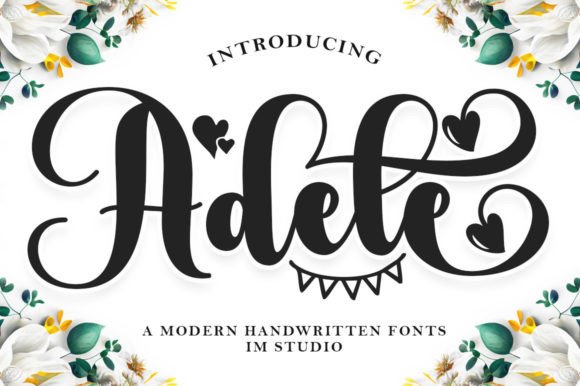
The Adele Font: A Game-Changer for Creative Projects
I’ll never forget the design struggle I faced while working on a wedding invitation project. My client wanted a font that was elegant, yet playful, and I was determined to find the perfect one. After hours of scouring the internet, I stumbled upon Adele’s latest style letters, and it was love at first sight! ✨ The beautiful, handwritten taste of this font was exactly what I needed to bring my client’s vision to life.
• ✨ Elegant and Playful: Adele Font has a unique blend of sophistication and whimsy, making it perfect for a variety of projects.
• ✅ PUA Encoded: The font is PUA encoded, which means you can easily access all the glyphs and swashes to add an extra touch of personality to your designs.
• ✅ Versatile: From wall displays to wedding invitations, social media post logos, advertisements, product packaging, and more, Adele Font is a versatile choice that can elevate any project.
While Adele Font is an amazing choice, there are a few things to keep in mind: ⚠️ Some users have reported that the font can be a bit tricky to work with in certain design software. However, with a little practice, you’ll get the hang of it! 🤔
The Story Behind Adele Font
Adele Font was inspired by the classic handwritten fonts of the past, with a modern twist. The designer wanted to create a font that was both elegant and playful, perfect for a variety of creative projects. The result is a beautiful, unique font that’s sure to elevate your designs.
Q: What is PUA encoding, and how does it work?
A: PUA (Private Use Area) encoding is a way of encoding fonts that allows for easy access to glyphs and swashes. With Adele Font, you can access all the glyphs and swashes using the PUA encoding.
Q: Is Adele Font suitable for body text?
A: While Adele Font is beautiful, it’s best suited for headlines, titles, and short paragraphs. For body text, you may want to choose a more traditional font.